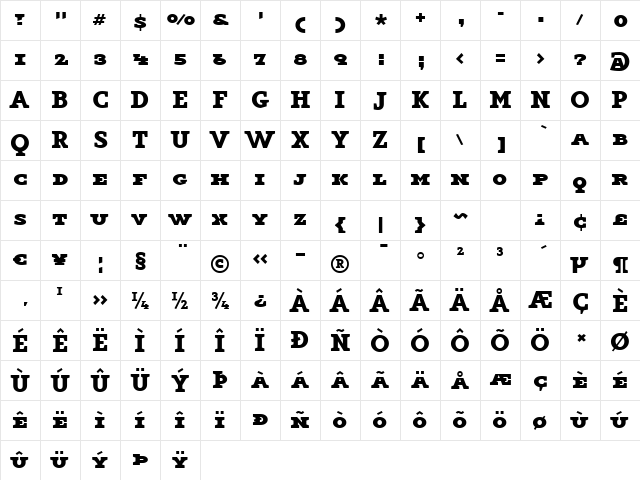
KeyBoldCapitals Regular
Design Context for KeyBoldCapitals Typeface
KeyBoldCapitals takes a measured approach to typography — its balanced proportions and neutral character make it a reliable workhorse for both digital and print work. Its bold stroke weight gives it real presence on the page.